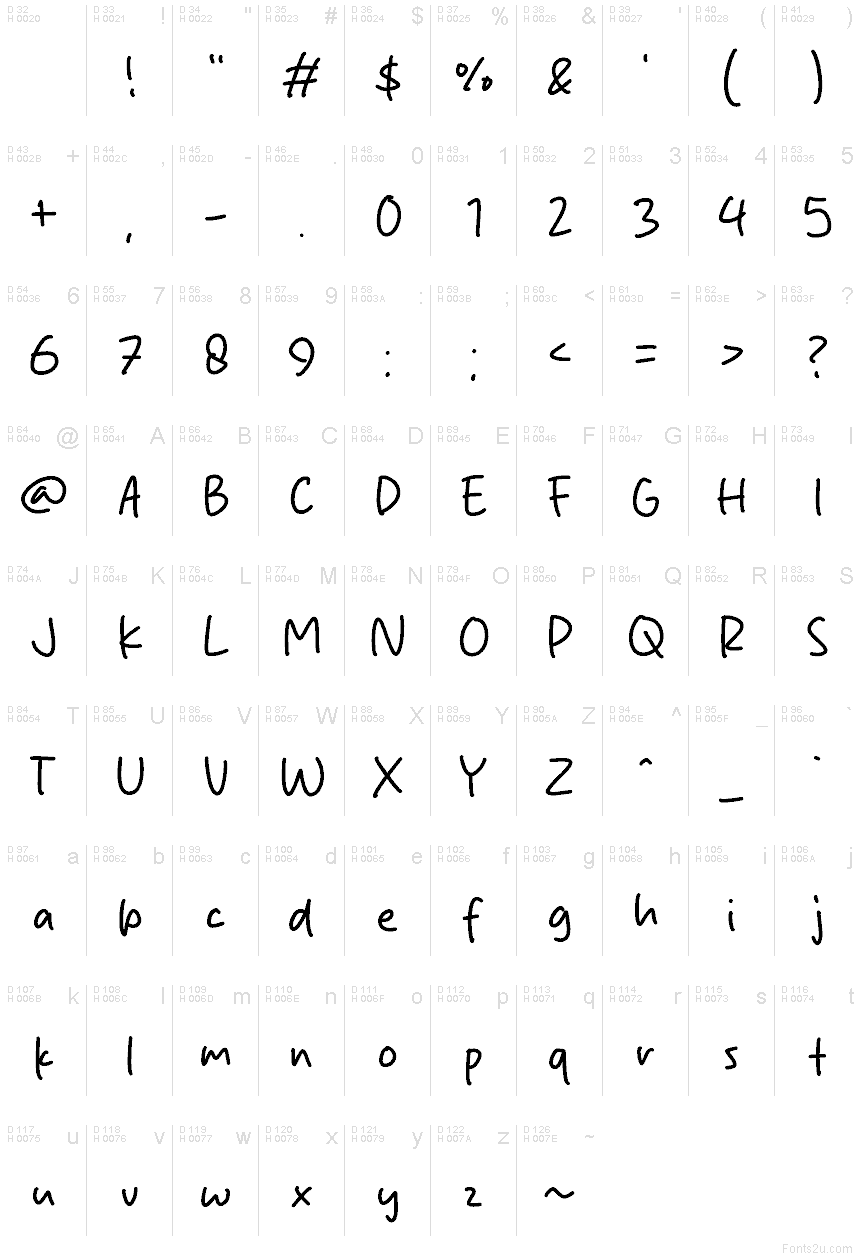
Author Handwriting
Author Handwriting font by Origin Type is a free handwritten typeface that finally nails the “real note” look without turning sloppy. Its inky, slightly scuffed strokes and gentle forward lean read like a quick jot from a felt-tip pen—casual, warm, and still tidy. The rhythm stays even, so lines feel friendly and conversational while remaining clean at small sizes.
Using Author Handwriting, you can add a human touch to journaling pages, teacher worksheets, quote graphics, social posts, recipe cards, coffee-cup labels, and cozy event invites. The spacing keeps words breathable, which helps headlines pop and longer captions stay readable. For a simple pairing, set body copy in a clean geometric sans and let this free font handle headings; bump the size a notch and give it a hair of extra letter spacing for airy charm.